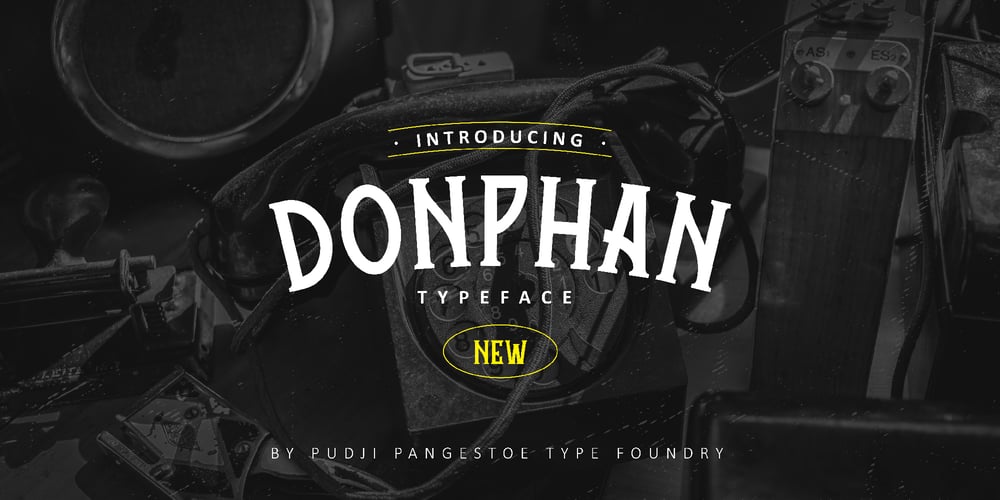
Donphan
Donphan font
Donphan Font Family was designed by Faishal Mahdy and published by Shaltype Co. Donphan contains 1 styles and family package options. DORPHAN is Retro Font that is well-produced by hand and generate into a clean form, that will be best when used in any placement like logo, poster, t-shirts, or any display.—Build manually, and reform into a clean Typeface. Natural stroke from original hand-lettering. It can be used for just Titles or even writing.—In this font, you will get :Over 223 glyphsLigatures in OpenType featuresSupport for 66 languages.—Get DORPHAN now! It will be best used for any design requirement, many fonts will come with a unique concept.—Thank you!Best Regards, PUDJI PANGESTOE STUDIOS